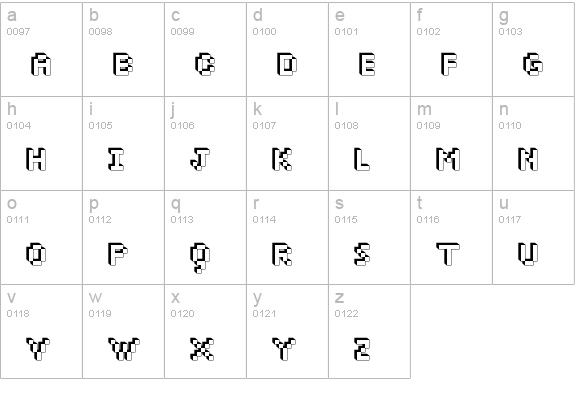
Dopil-Regular is the standard, neutral variant in the Dopil typeface family \xE2\x80\x94 well suited to general body text, paragraphs, and standard typographic work.
Dopil-Regular is a modern and elegant font that exudes sophistication and style. With its clean lines and versatile design, this typeface is perfect for a wide range of design projects, from branding to editorial work. The balanced proportions of Dopil-Regular make it easy to read and appealing to the eye, making it a great choice for both print and digital applications. What sets Dopil-Regular apart is that it is offered for free, allowing designers to access a high-quality font without any cost. This means that you can elevate your designs without breaking the bank. You can download Dopil-Regular for free at FontsMarket.com, where you will find a wide selection of other high-quality fonts for your creative projects. Don't miss out on this opportunity to enhance your design work with Dopil-Regular - a free font that combines style and accessibility.